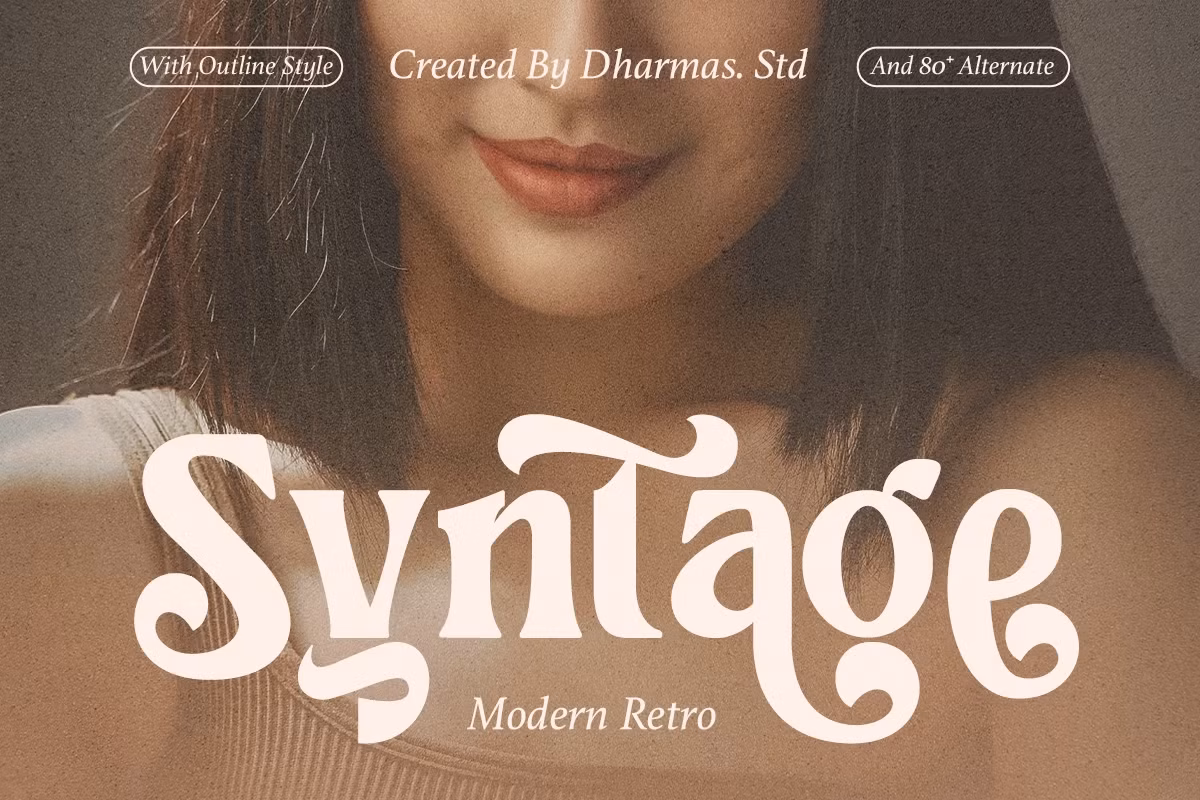
Syntage - Modern Retro Serif Free Download
Syntage - Modern Retro Serif Font Free Download is a stylish fusion of vintage charm and modern sophistication, perfect for designs that demand both nostalgia and elegance. Please note: you must purchase this font for commercial use, but you can test it through a free download. With its high-contrast strokes, rounded edges, and bold serifs, Syntage is ideal for headlines, branding, posters, packaging, and editorial layouts.
Whether you're creating a throwback aesthetic or adding flair to a contemporary design, Syntage - Modern Retro Serif Font Free Download offers the versatility to elevate your work. Its retro inspiration meets modern legibility, making it perfect for digital and print use alike. Fully compatible with tools like Adobe Illustrator, Photoshop, and Canva, it’s easy to work with and delivers polished results. Download it today for personal use and infuse your designs with bold personality and timeless retro vibes.